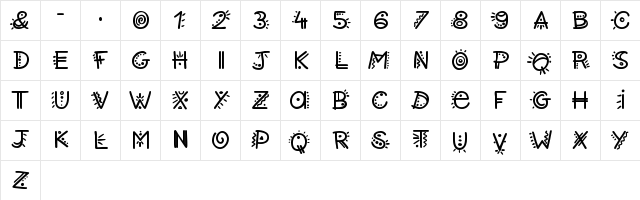
Twisted Regular Free Font
Twisted Regular
Foundry: Lazy Poony
Designer: Lazy Poony
Design Context for Twisted
Twisted is a composed and adaptable typeface that performs quietly and consistently across a wide range of design contexts.
Who designed the Twisted Regular font?